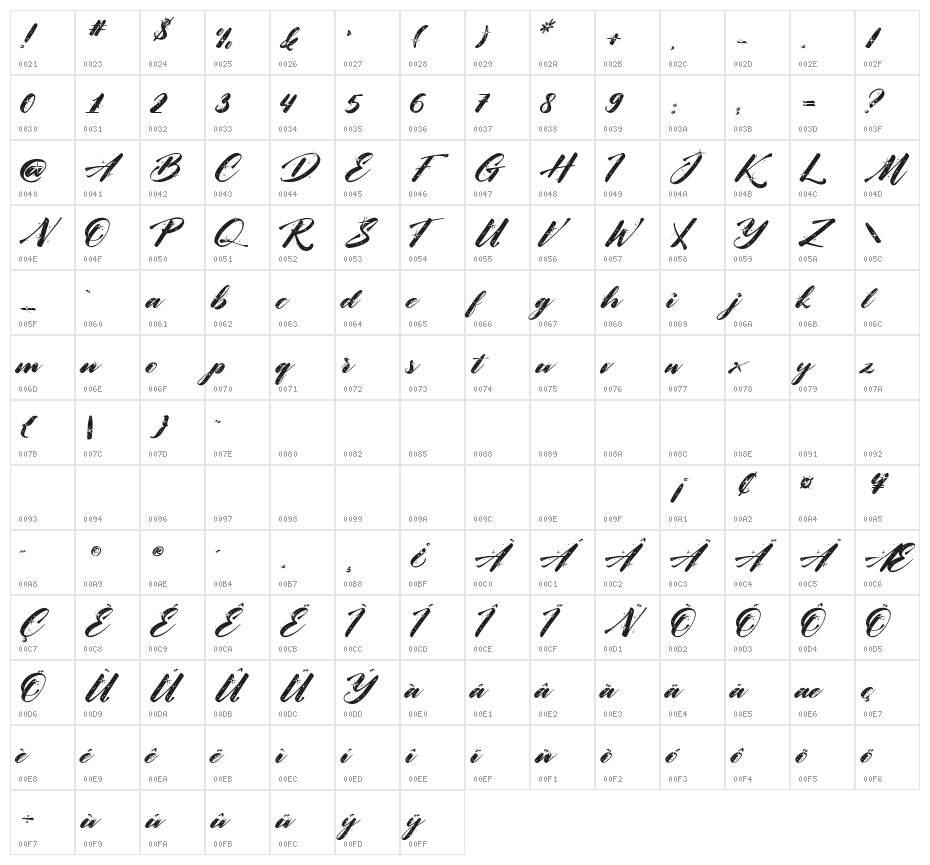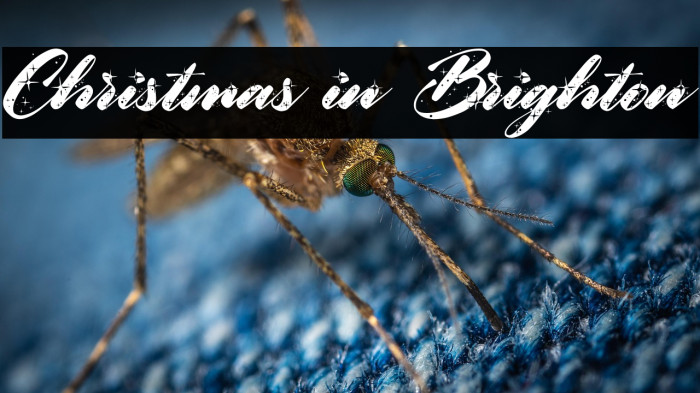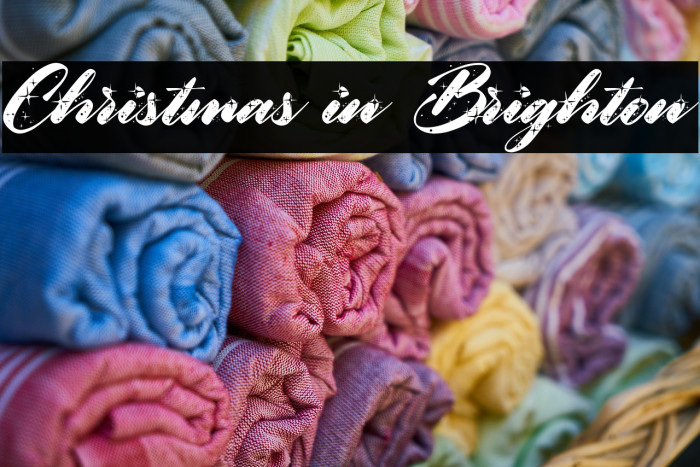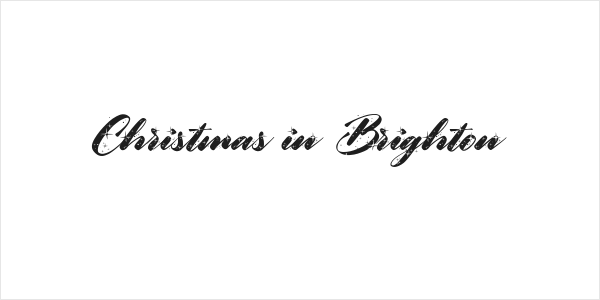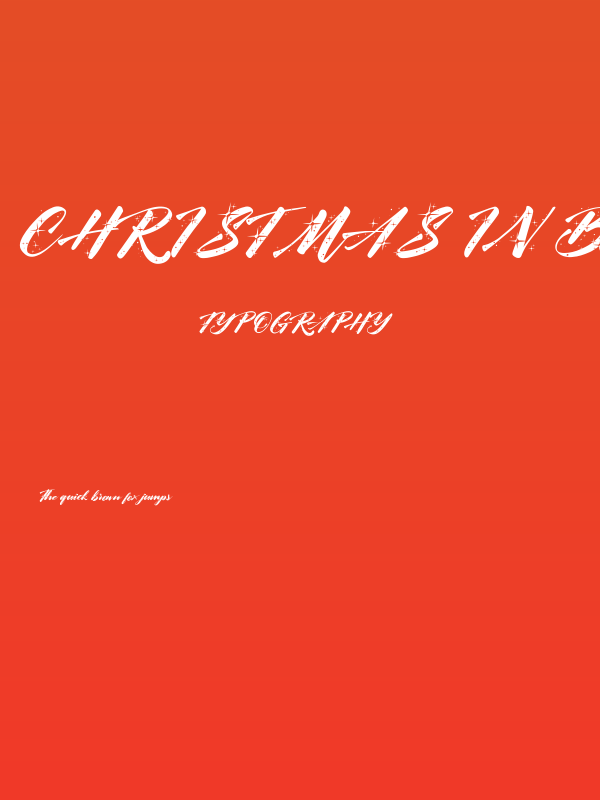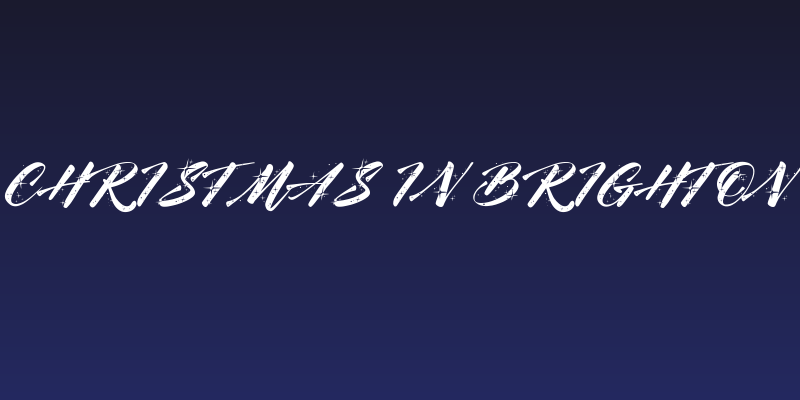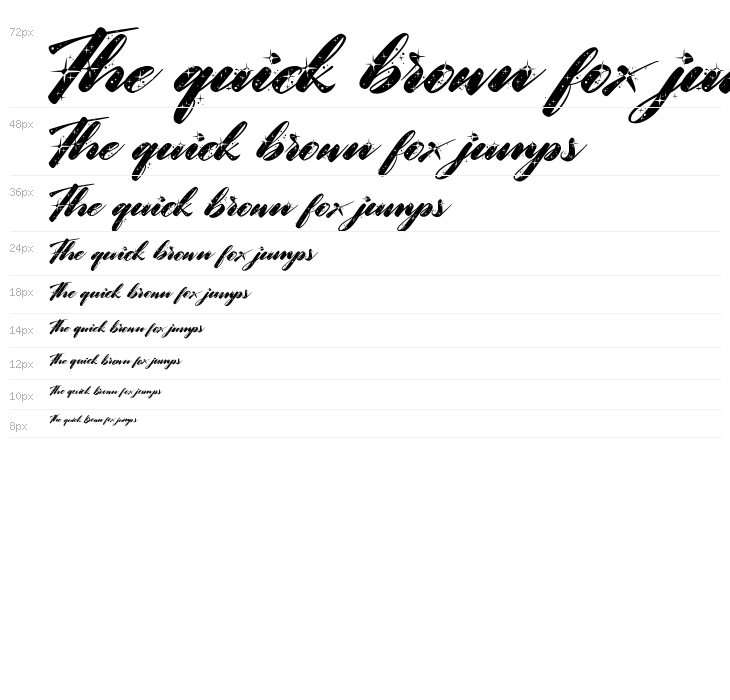
Christmas in Brighton Font
Christmas in Brighton Description
This font exudes a festive and decorative style, characterized by its cursive script and elegant flourishes. Each letter is adorned with sparkling accents, adding a touch of glamour and whimsy. The strokes are bold and confident, with a smooth flow that mimics handwritten calligraphy. The uppercase letters are particularly ornate, while the lowercase letters maintain a consistent style, ensuring readability. Numbers and special characters are equally embellished, making this font ideal for holiday-themed designs.
| Proposed Projects | Ideal for holiday greeting cards, festive invitations, seasonal branding, and decorative posters. |